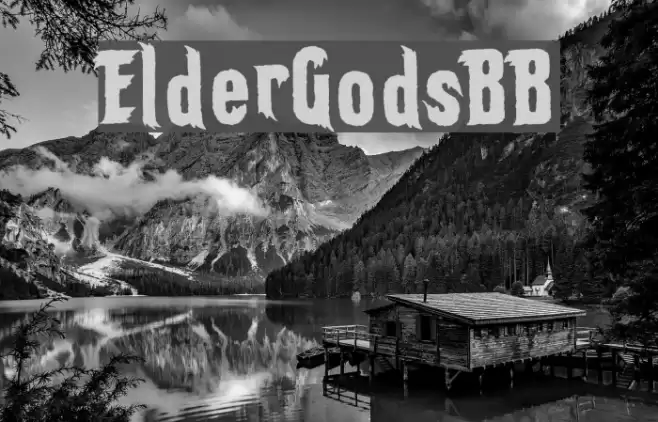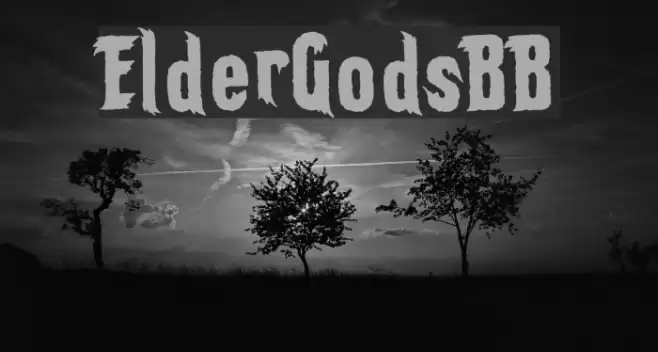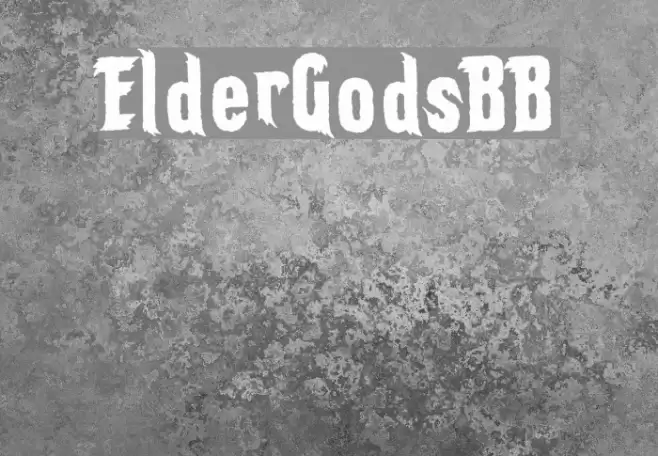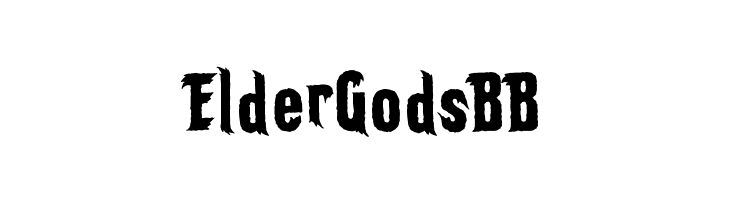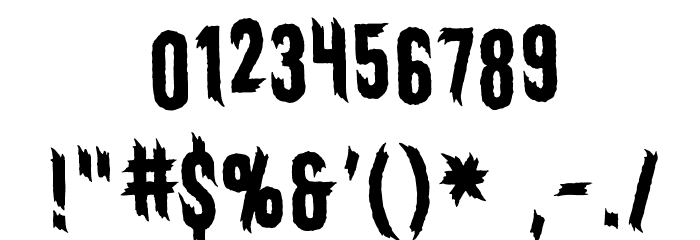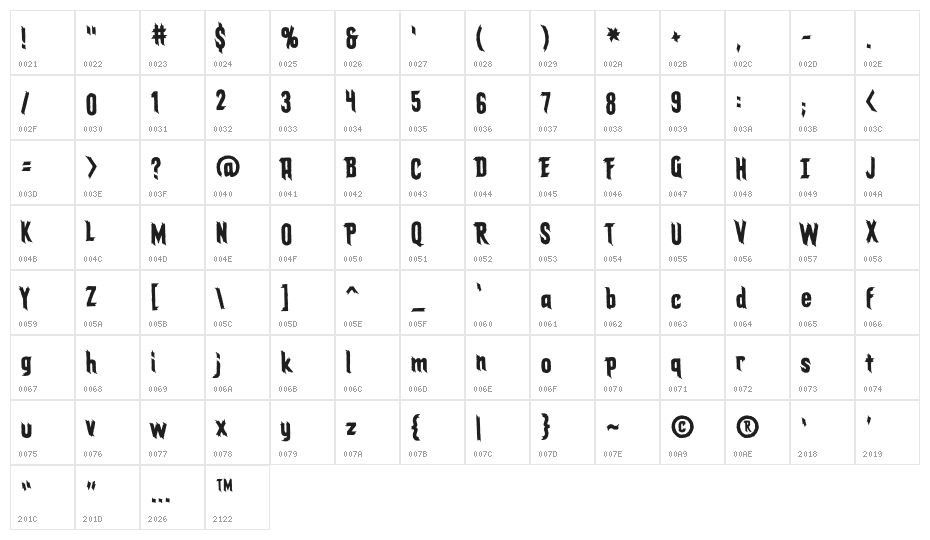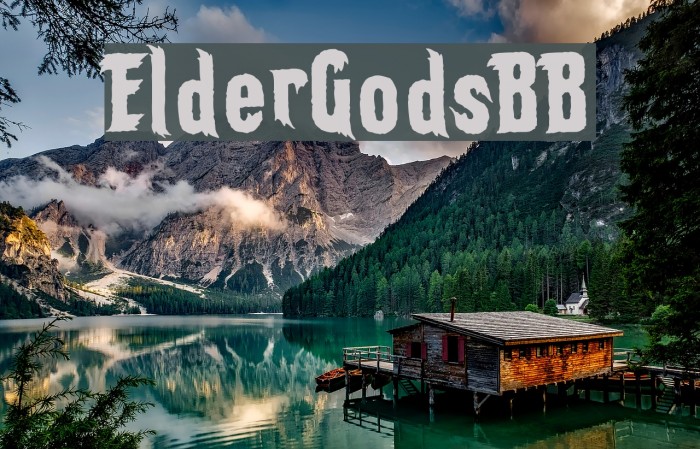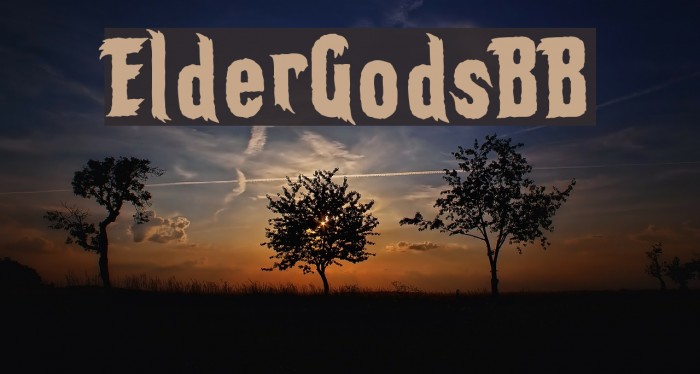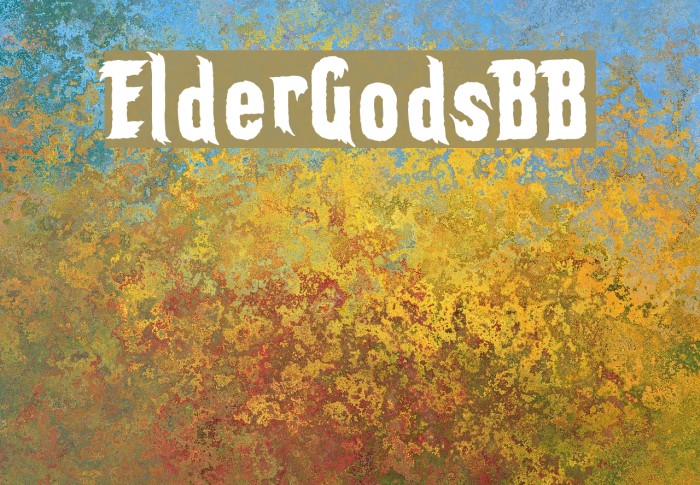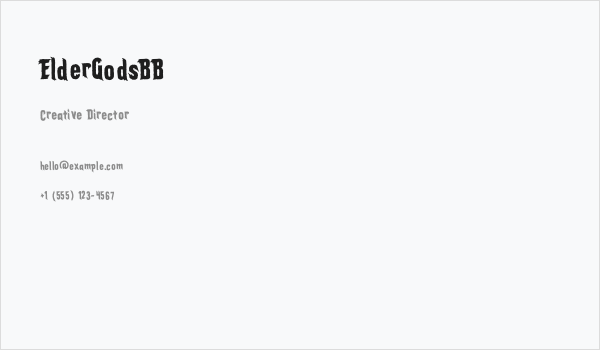
ElderGodsBB Font
ElderGodsBB Description
This font features a bold, jagged design with an eerie, horror-inspired aesthetic. The characters have irregular edges and a distressed appearance, reminiscent of torn paper or claw marks. The uppercase and lowercase letters maintain a consistent style, with sharp angles and uneven strokes that create a sense of movement and chaos. The numbers and special characters follow the same rugged theme, making the font suitable for projects that require a dramatic and unsettling look. Its unique style captures attention and evokes a sense of mystery and suspense.
A bold, jagged font with a horror-inspired, distressed aesthetic from Uncategorized fonts.
- Proposed Projects: Ideal for horror-themed posters, Halloween invitations, video game titles, and any project requiring a dramatic, eerie look.